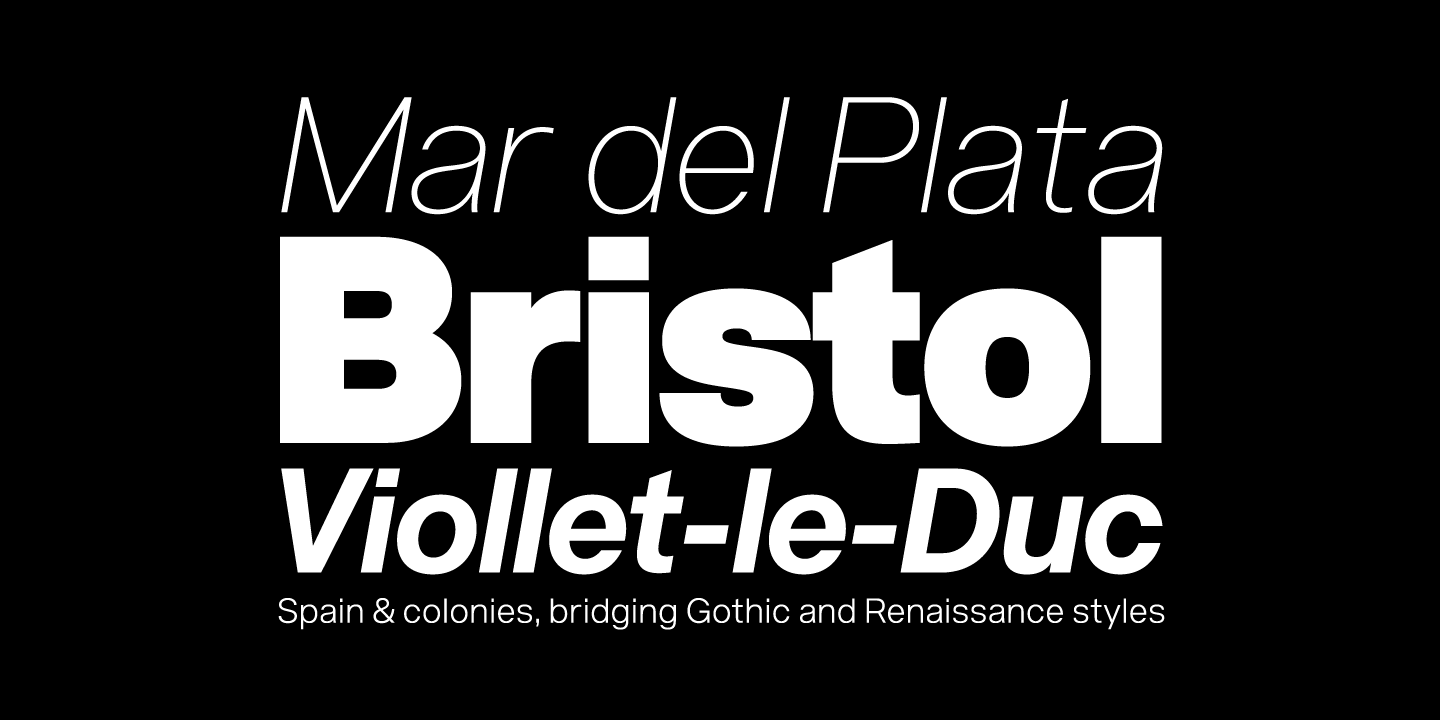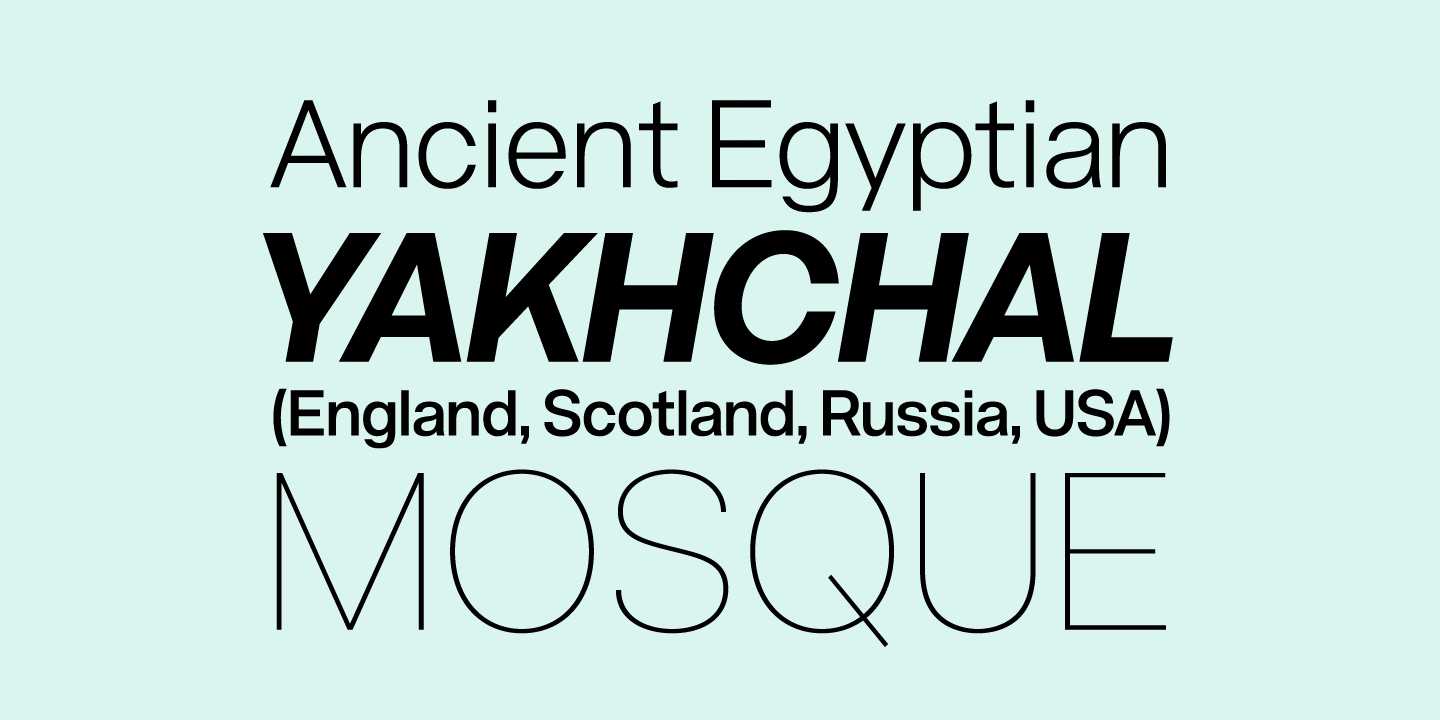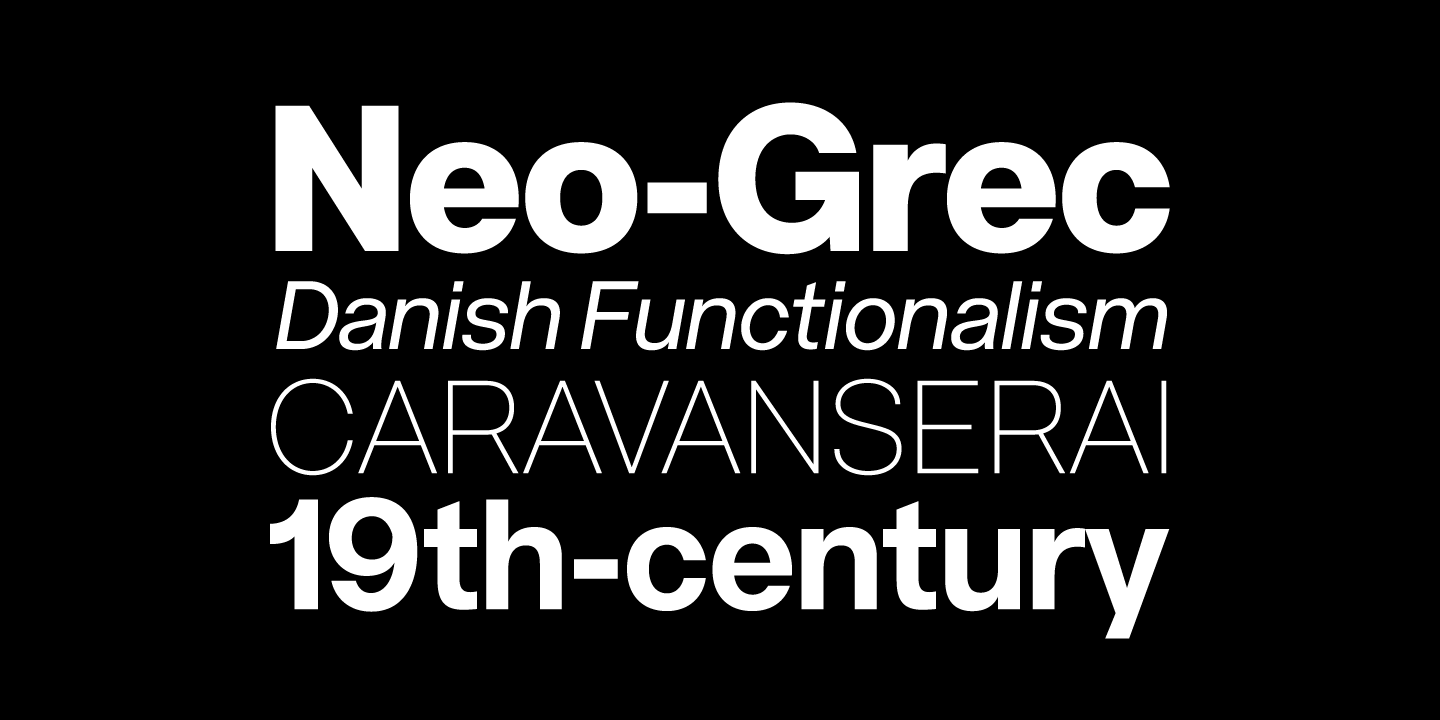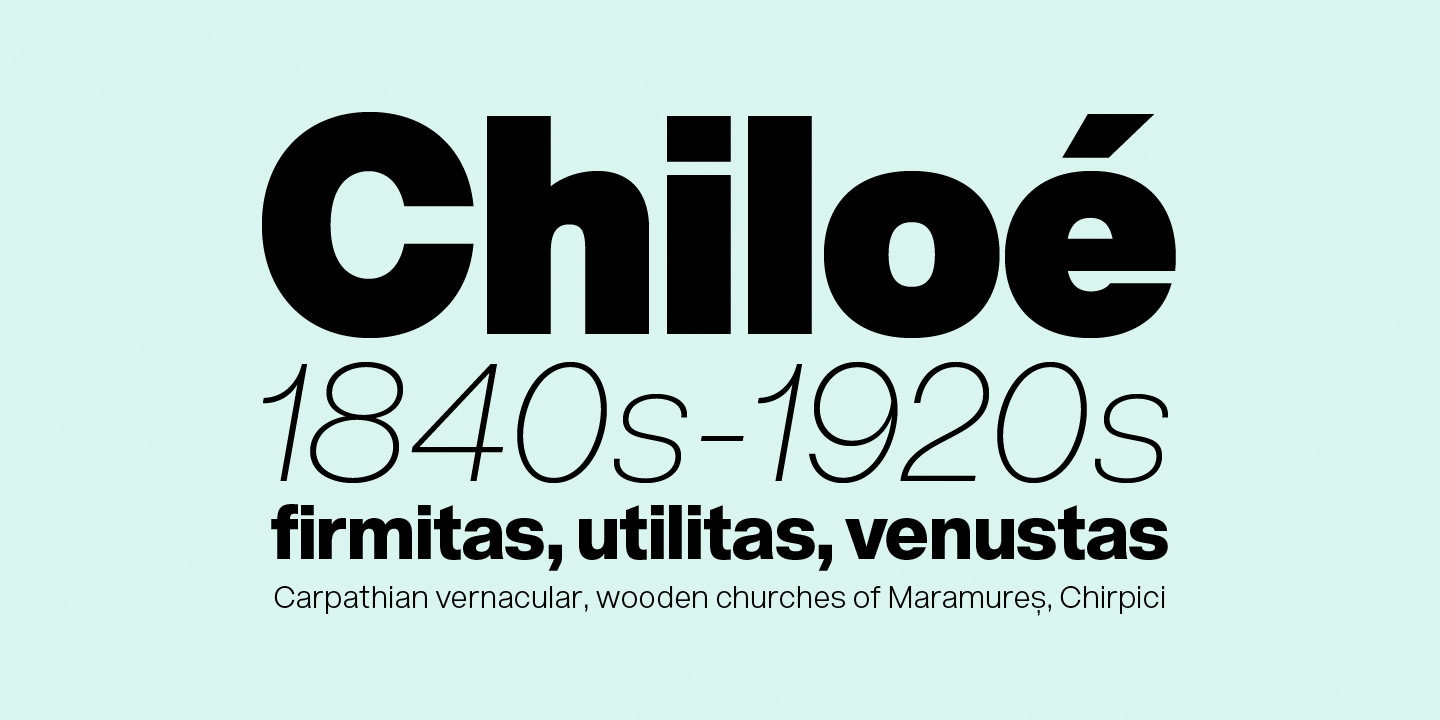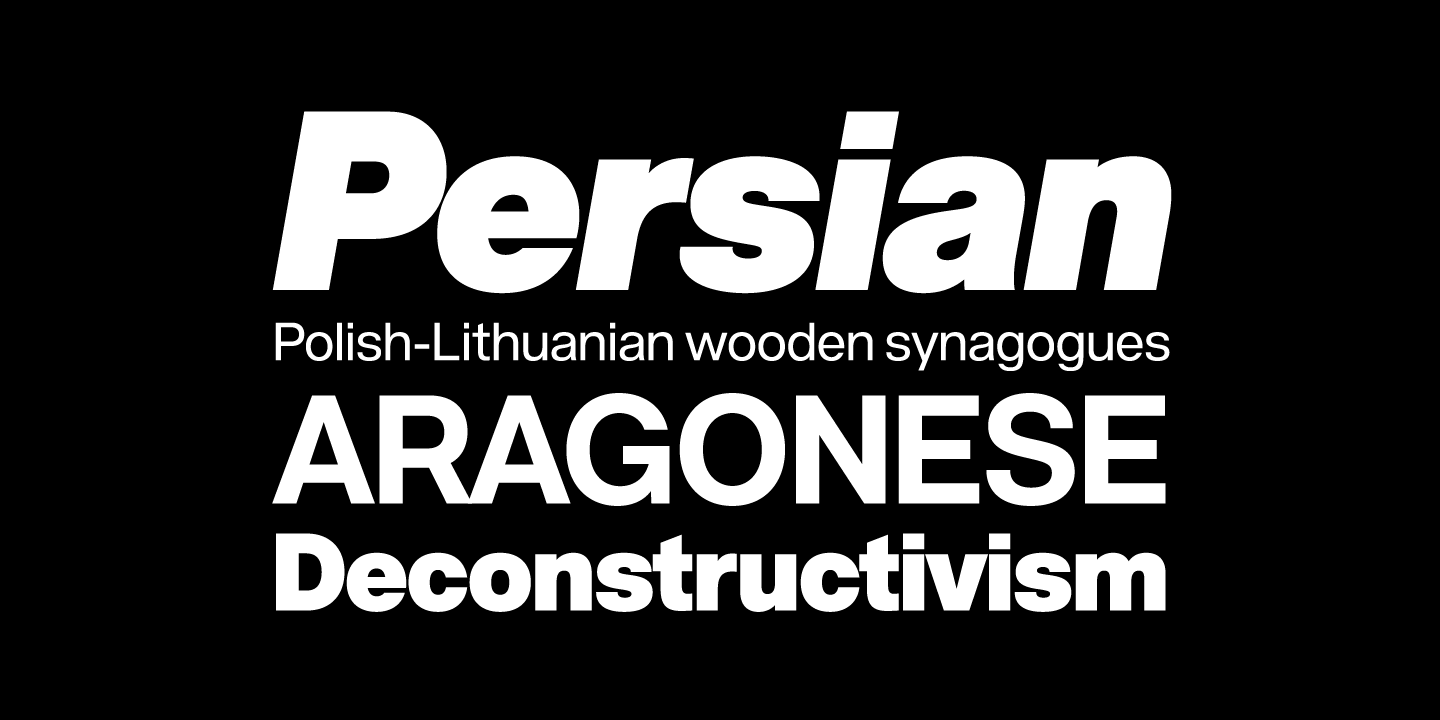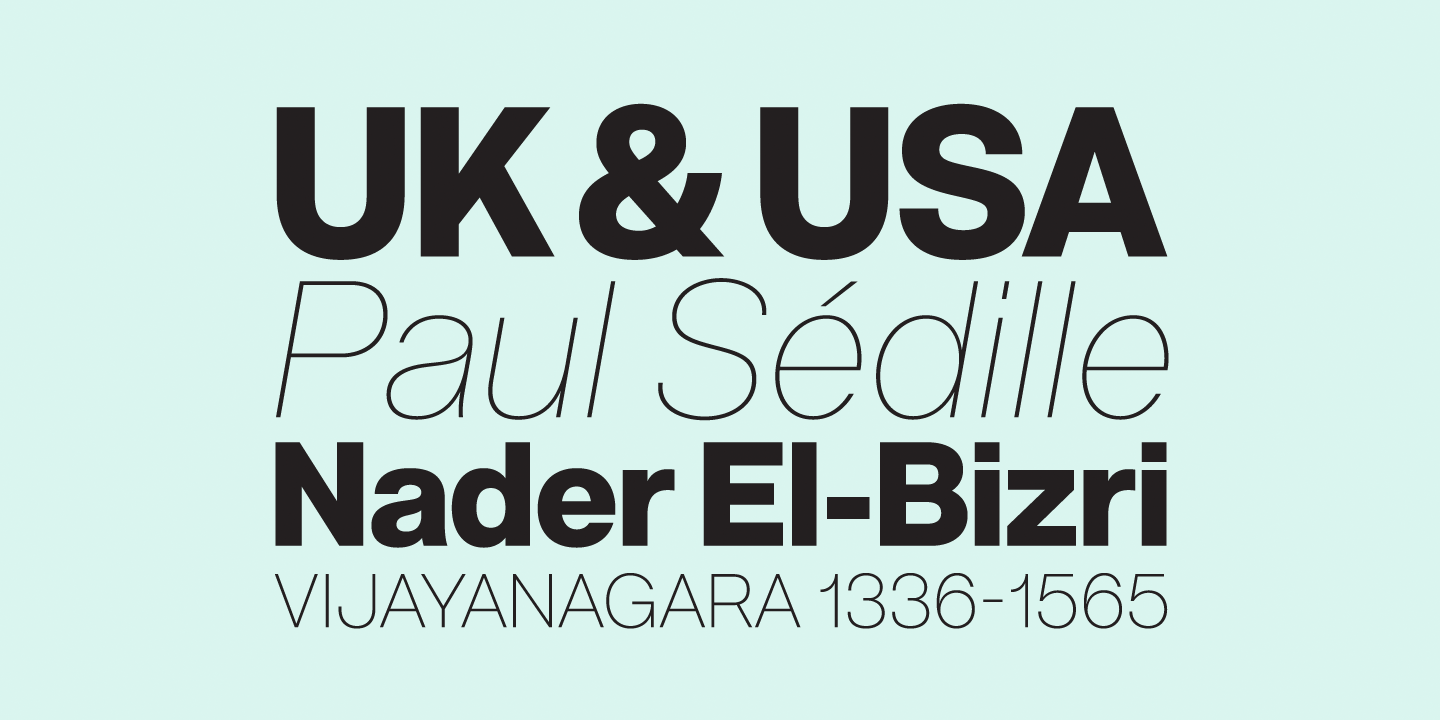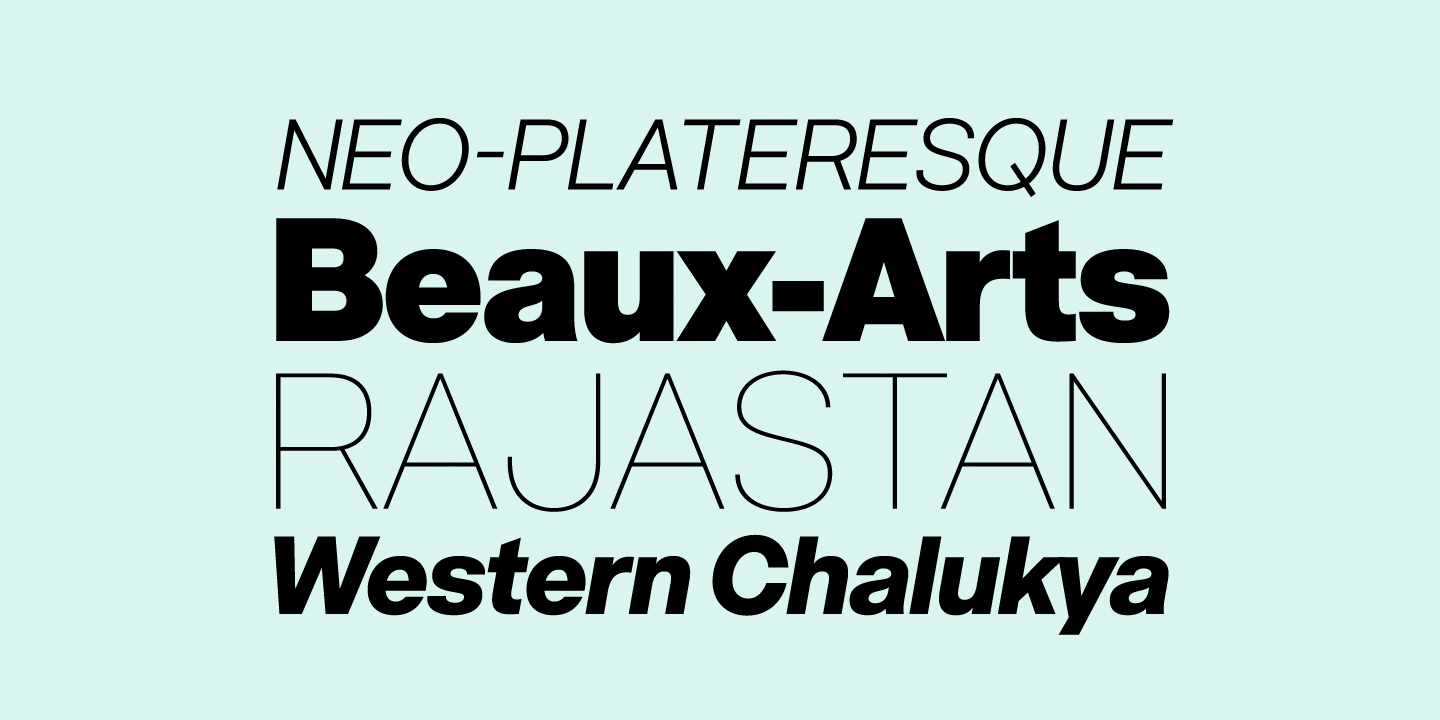
Acronym Deluxe
Acronym is a highly refined neo-grotesque sans-serif based on Helvetica and its modern day variants. Although it stays true to the essence of 'Helvetica' conceptually, it's not restrained by an attempt at upholding historical accuracy or formalities. Acronym pays homage to the original by staying in tight conceptual alignment, yet deviates freely within those same bounds. Everything from the metrics, x-height, descender length, character width, contrast, through to the drawing, structure, refinement, and detail of each letterform is uniquely its own. Entirely new, yet very familiar, its character is defined by pushing the limits of, and applying, a strict set of related values throughout the design process. Among others of similar classification, Acronym is distinguished specifically by the clarity, balance, symmetry, alignment or reductionism of its letterforms and letter pairings.
Considering its versatile nature, the range of styles are designed to be as thorough as possible. Two supplemental weights add to the initial range spanning from Hairline to Black, totaling twenty styles. Thin and Extrablack are subtle weight variants that break from the evenly staggered weight division, allowing for a slightly increased range. The ten roman styles are complimented by a corresponding set of italics. Carefully scrutinized and labored over, the optical distortion caused by slanting has been corrected, with the italic styles imparting the same sense of solidity, attention, and refinement as the romans.